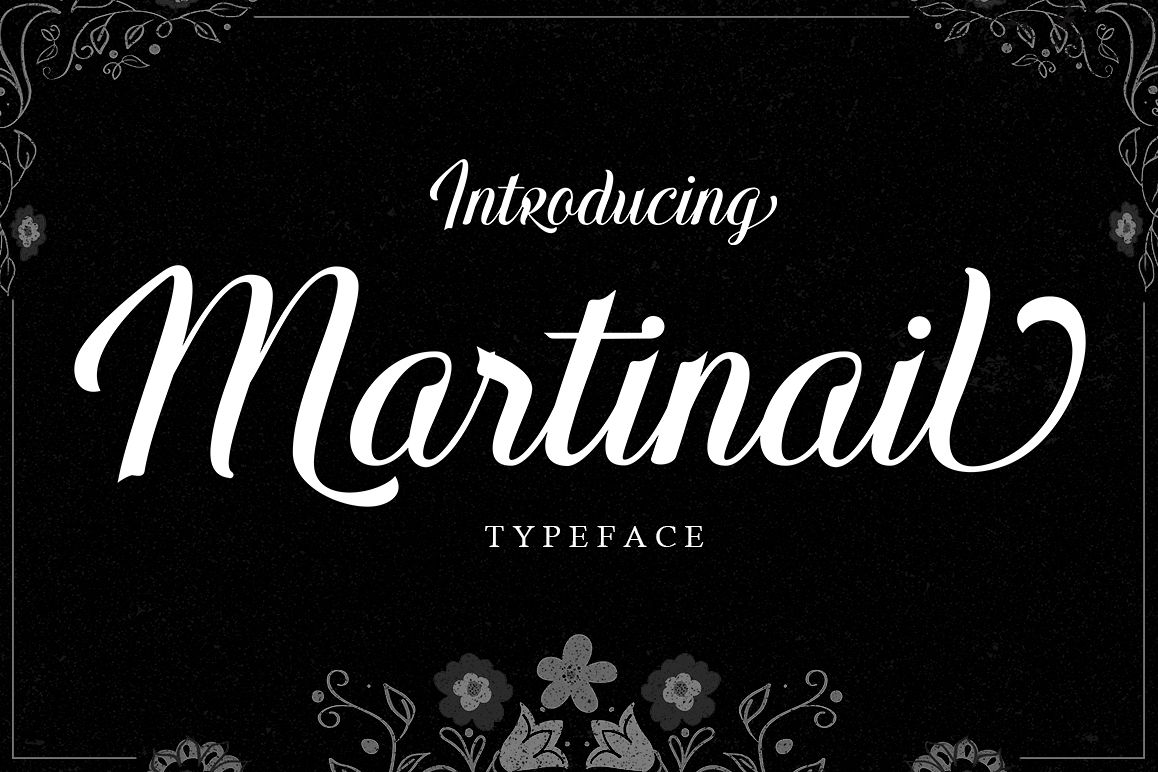
Martinail
Martinail Light
Martinail
Martinail College
**Martinail Script** is a contemporary romantic calligraphic typeface, a mixture of retro script and modern sans serif. get a classic and elegant touch. Can be used for various purposes.such as logos, wedding invitation, t-shirt, letterhead, signage, lable, news, posters, badges etc.Files included: